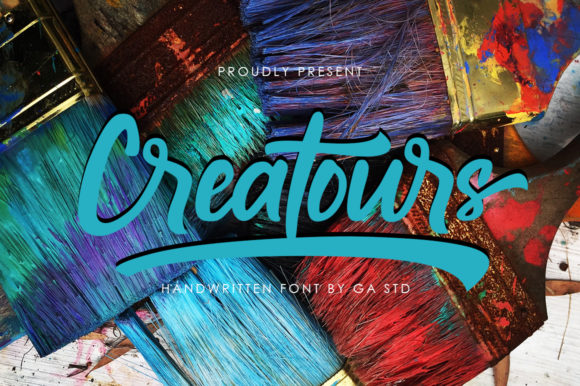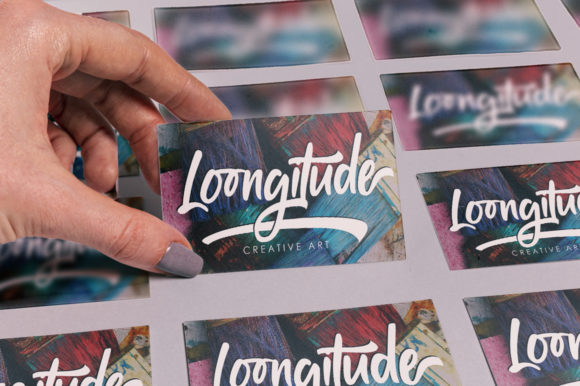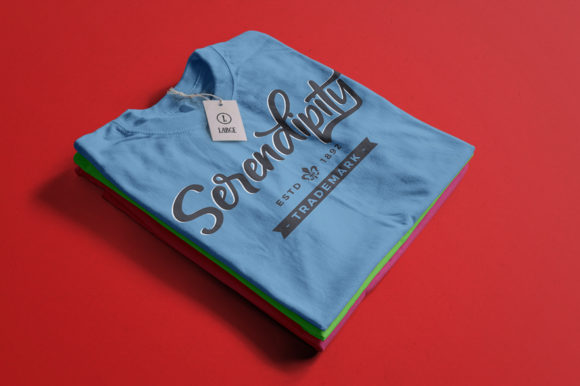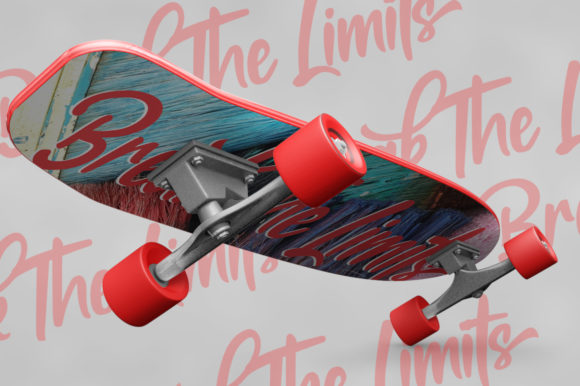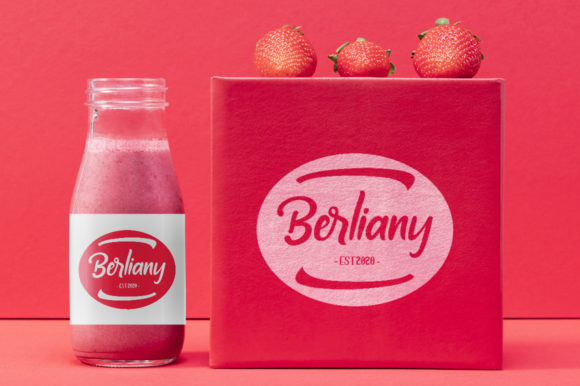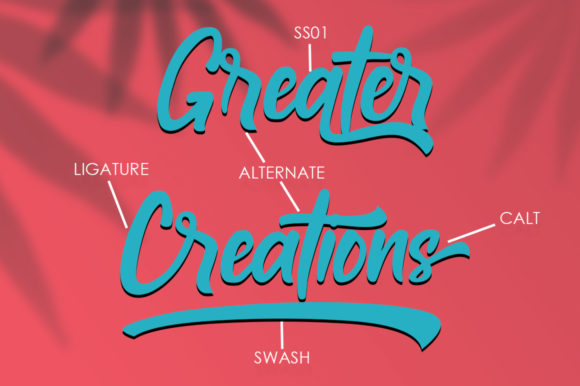
About Creatours Font
Creatours is a stylish and flowing handwritten font. It is the best choice for creating eye catching logos, branding and quotes. Every letter has a unique and beautiful touch, which will make your design come alive! This font is PUA encoded which means you can access all of the glyphs and swashes with ease!